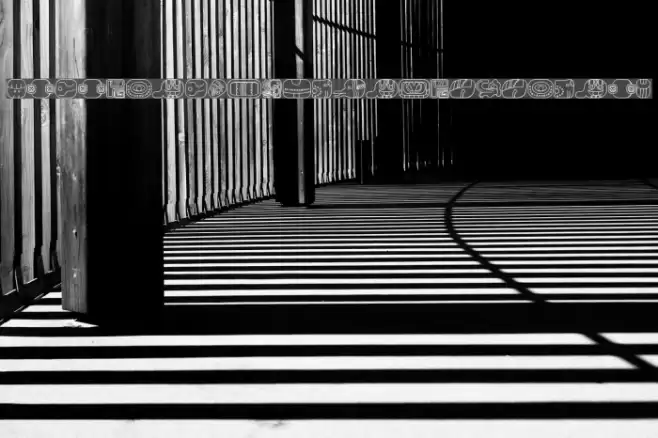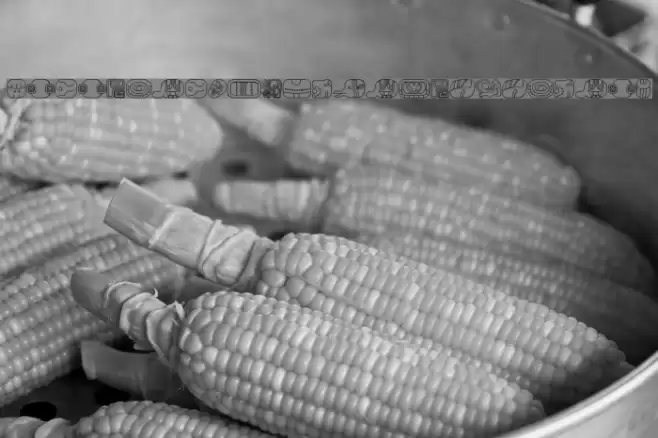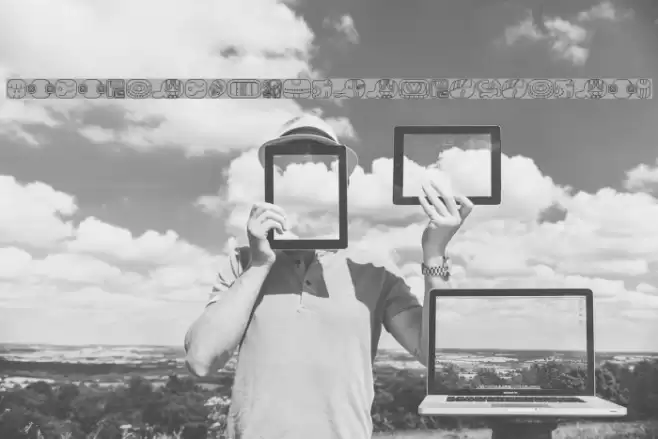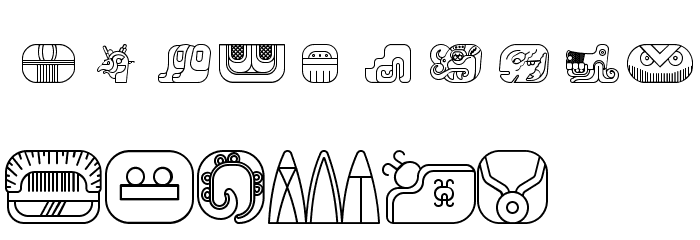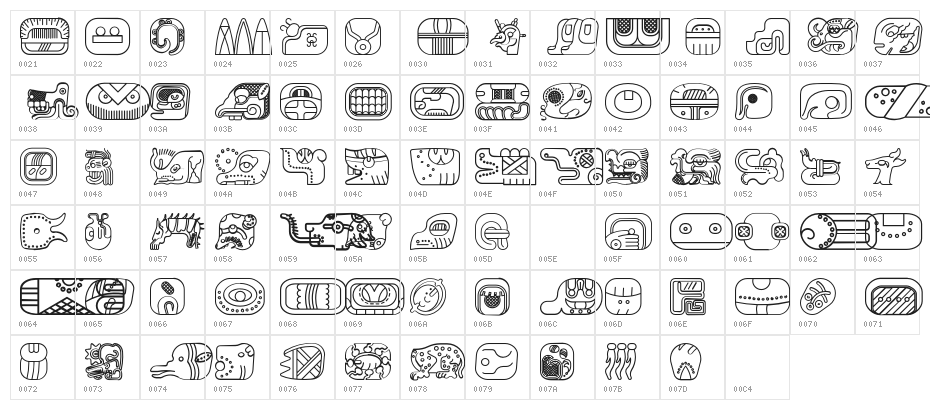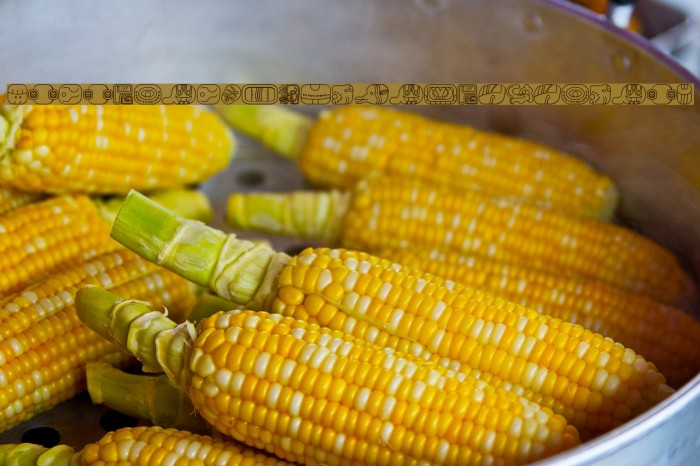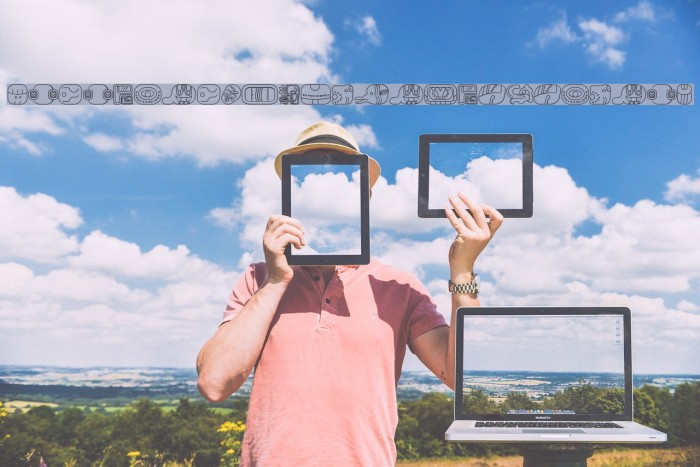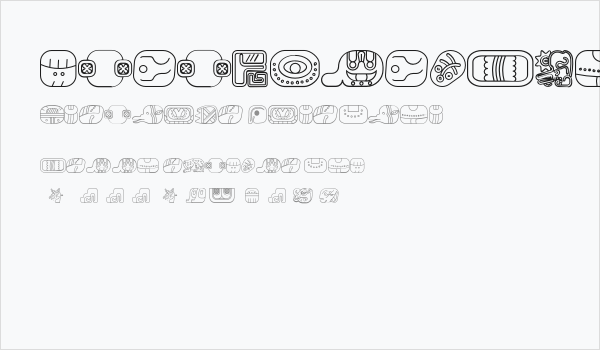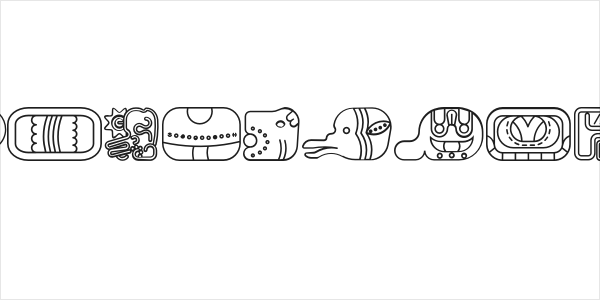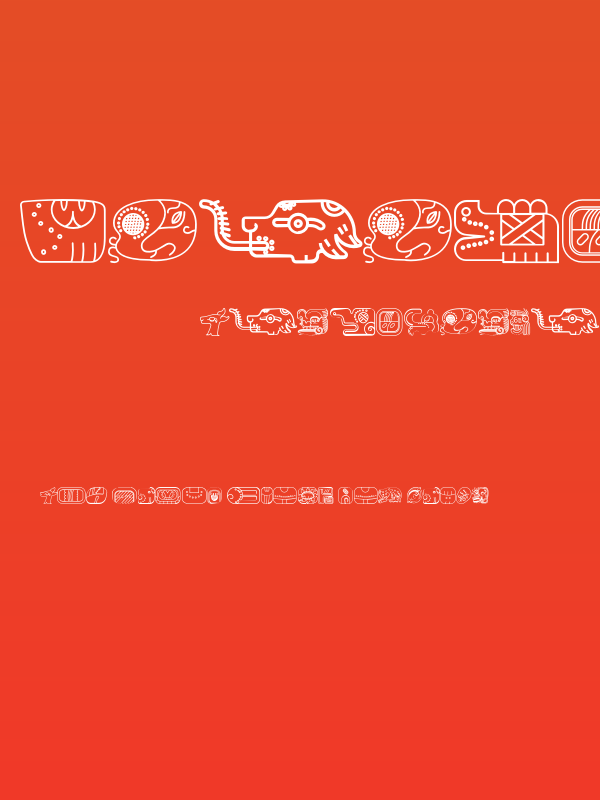
mayanglyphsoutline-Regular Font
mayanglyphsoutline-Regular Description
This font is a decorative and intricate design inspired by ancient glyphs. Each character is uniquely crafted with detailed line work, resembling historical symbols or hieroglyphs. The style is highly ornamental, with each letterform enclosed in a rectangular shape, featuring various patterns and motifs. The characters are bold and eye-catching, making them suitable for artistic and thematic projects. The overall appearance is reminiscent of ancient scripts, providing a sense of mystery and cultural richness. This font is not suitable for body text due to its complexity but excels in creating a thematic atmosphere.
An intricate, decorative font inspired by ancient glyphs with detailed line work from Dingbats fonts.
- Proposed Projects: Ideal for themed designs, cultural projects, artistic displays, and decorative purposes.
- Use Case: Logos, Posters, Themed Events